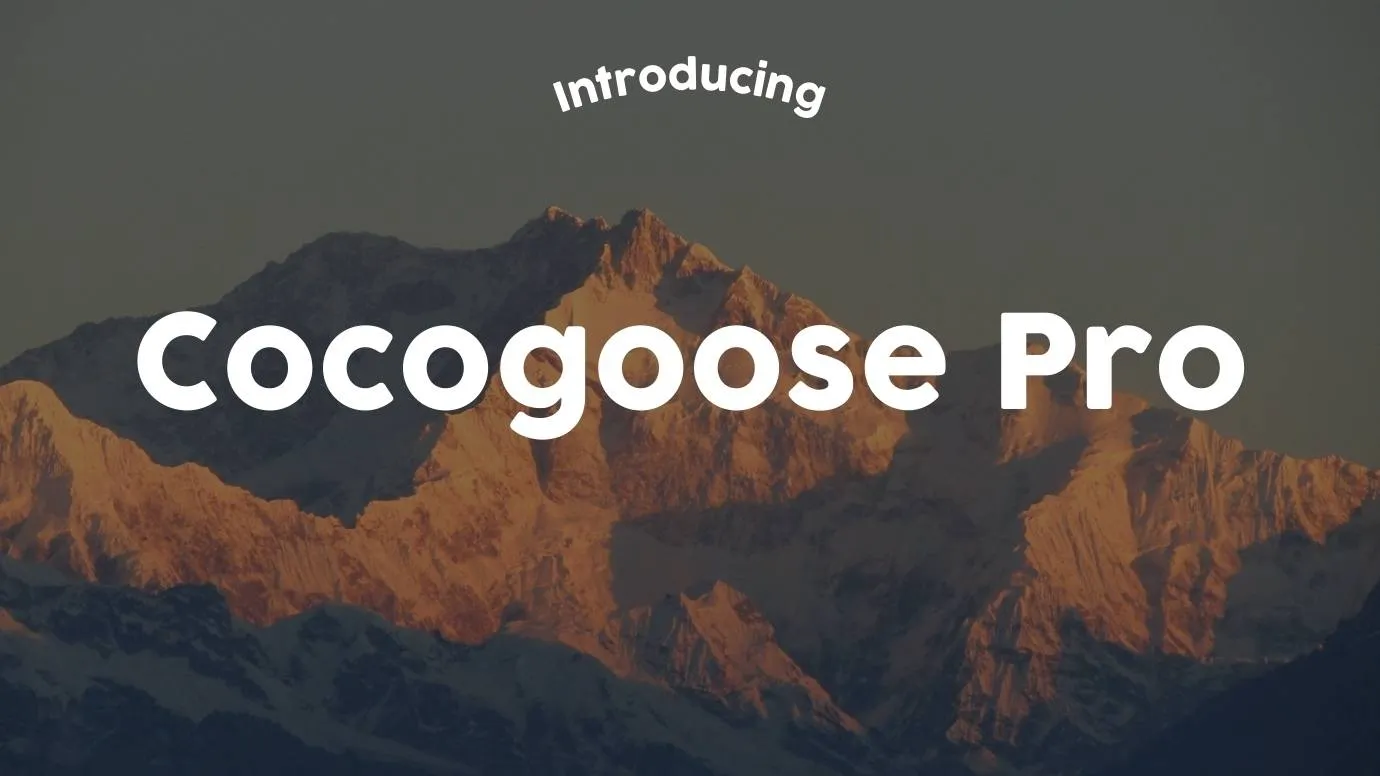
Cocogoose Pro Font Free Download
Cocogoose Pro Font Family is sans serif family that has 17 extra-advanced weights that are obtainable for many styles. Zetafonts is a famous foundry that works for the creation of this texture.
This font family has many similar fonts that are attainable for combination with altone font. Due to its vintage look, this gorgeous typeface has fancy outline styles that produce a number of display designs.
Cocogoose Pro Font